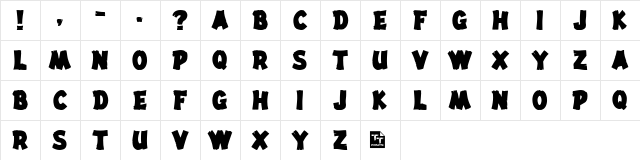
DriftType Solid Free Font
DriftType Solid
Style: Solid
Foundry: TracerTong
Designer: TracerTong/WhoAmI
Design Context for DriftType
DriftType is a composed and adaptable typeface that performs quietly and consistently across a wide range of design contexts.